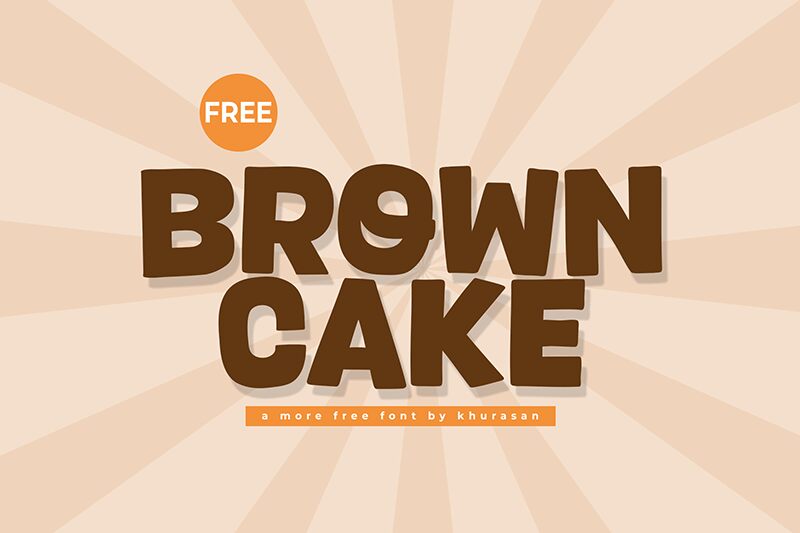
Brown Cake font by Khurasan is a bold display typeface with a playful cartoonish style. This strong geometric font has an eye-catching modern aesthetic, perfect for projects that require a lively and impactful appearance.
Take advantage of this free solid font for your logos, posters, headlines, packaging designs, birthday invitations, branding concepts or any children-related design work. Other original uses include book covers and business cards too.